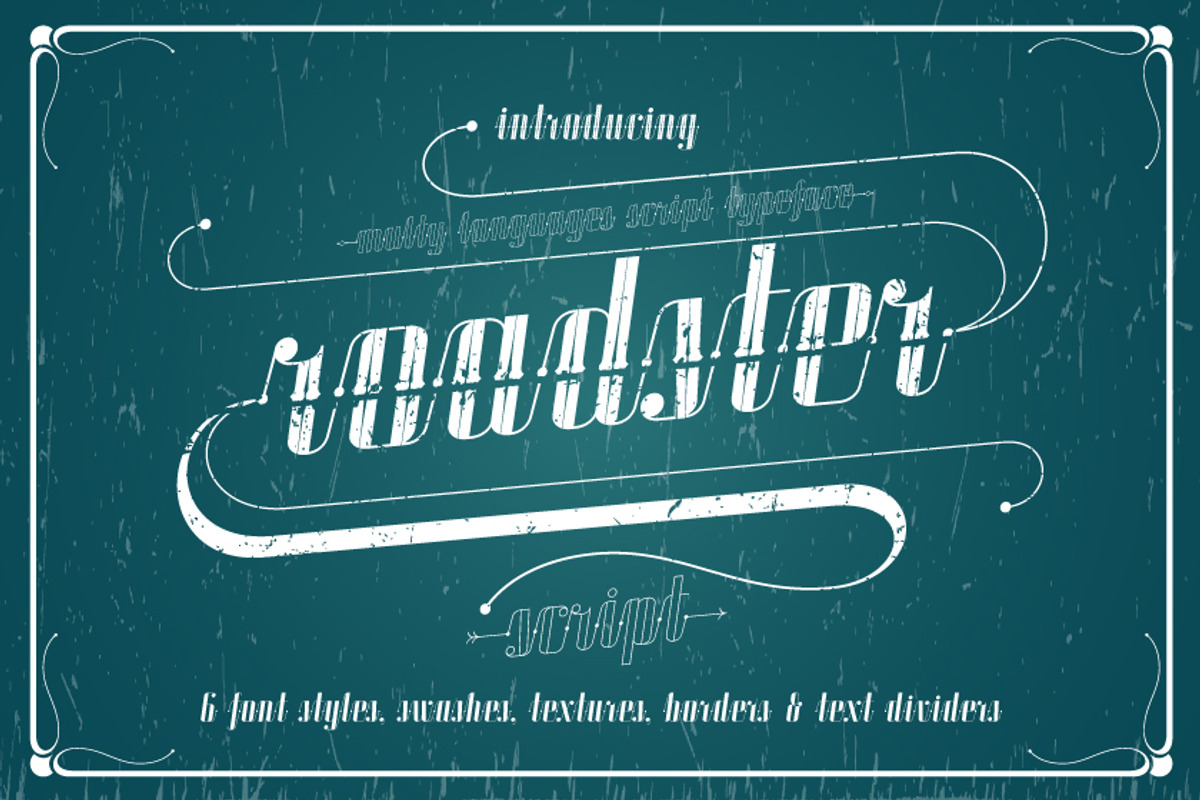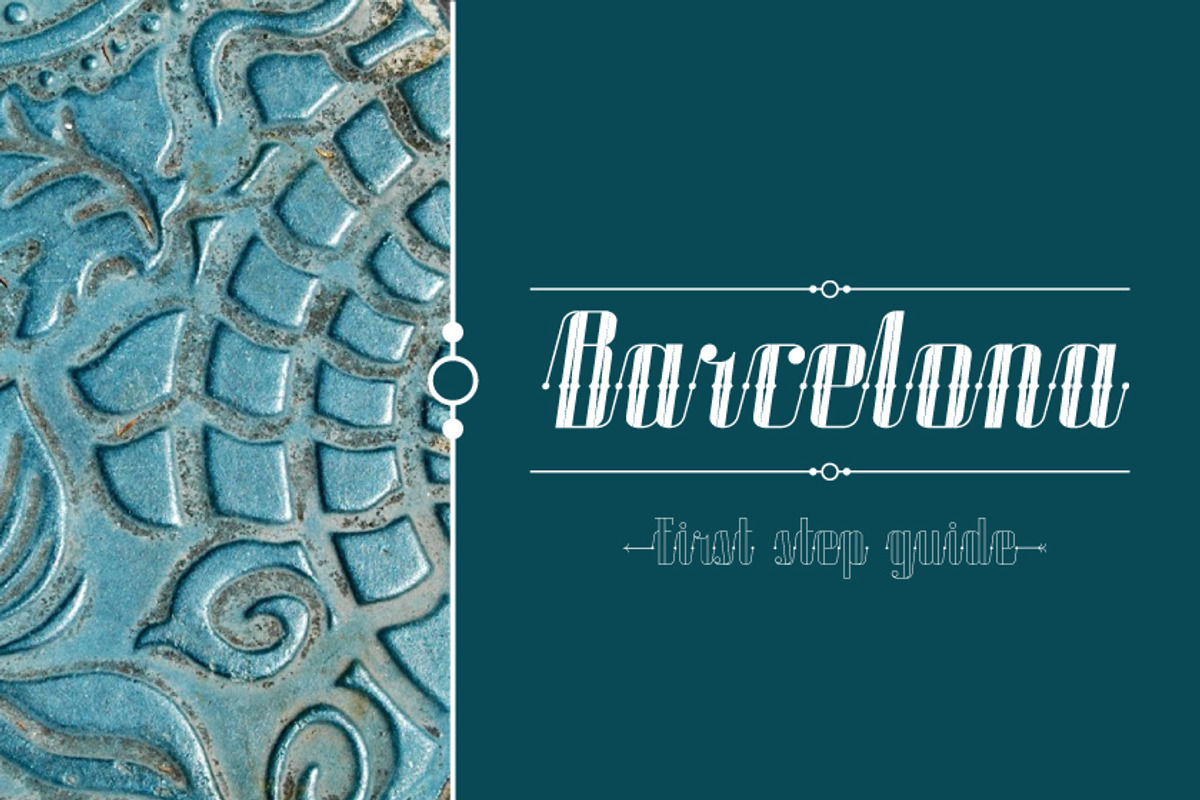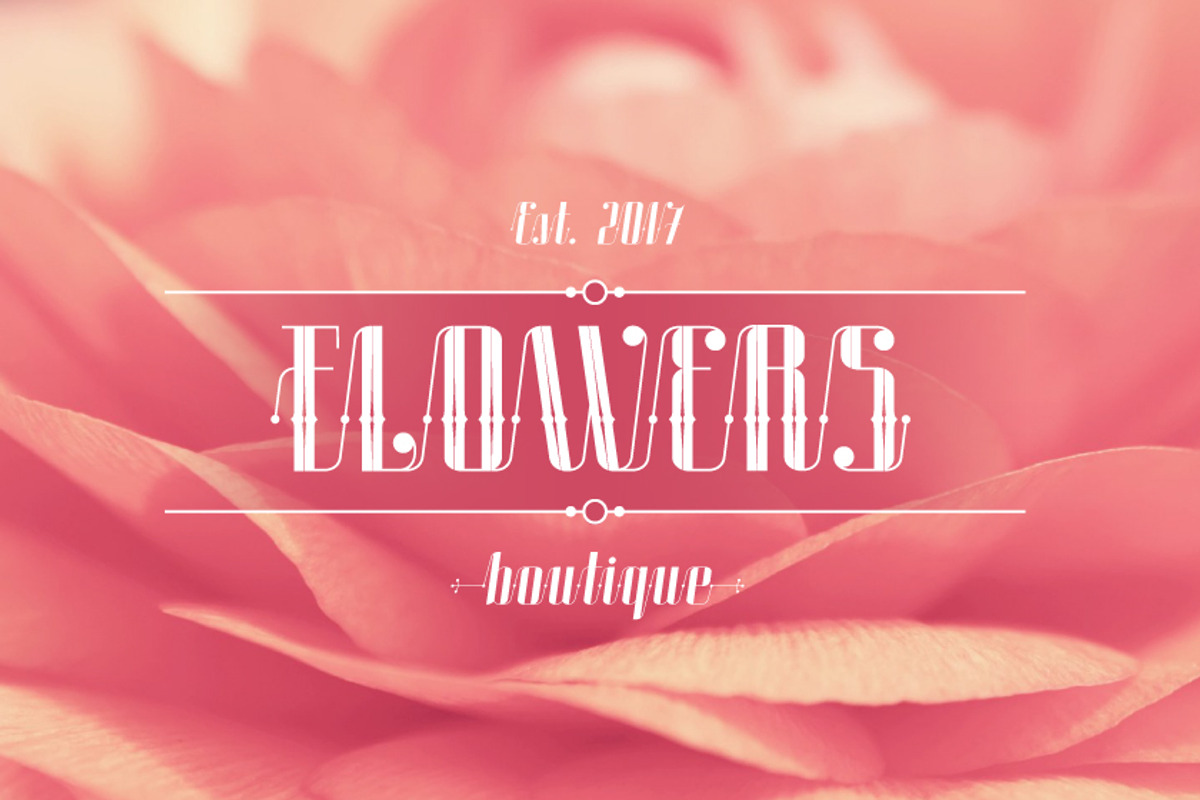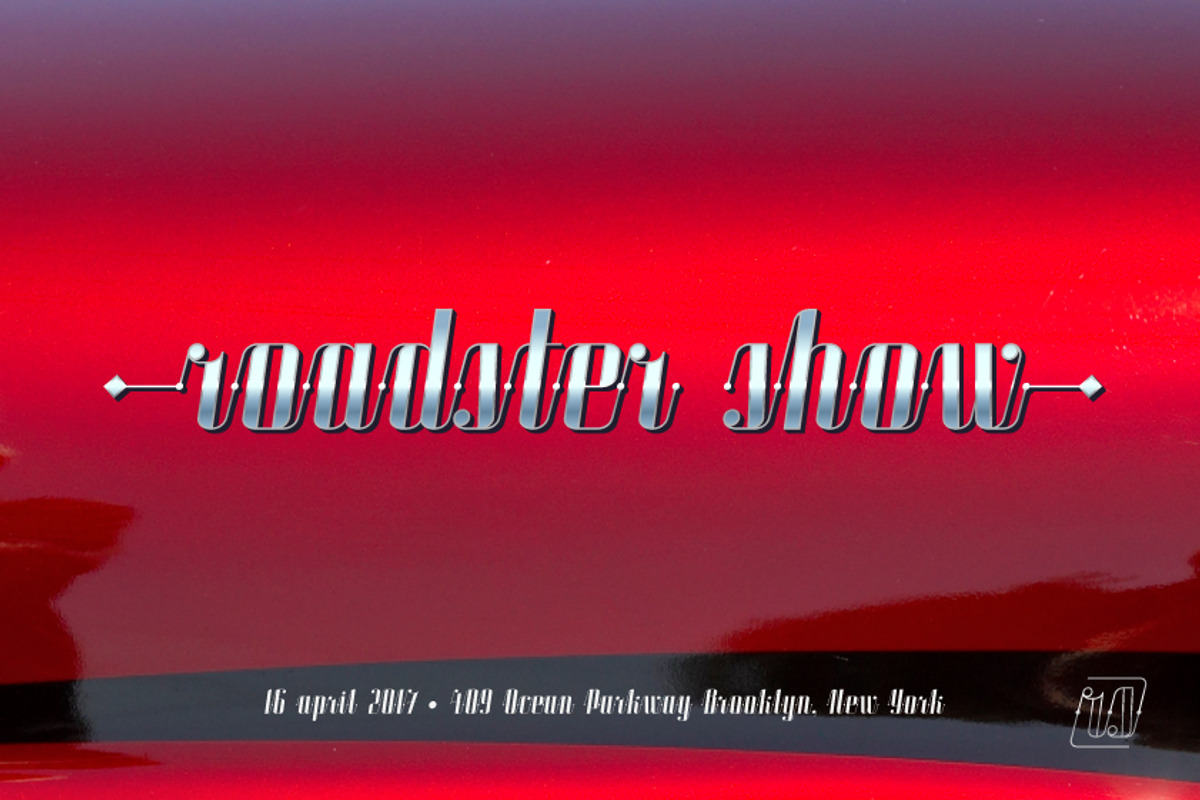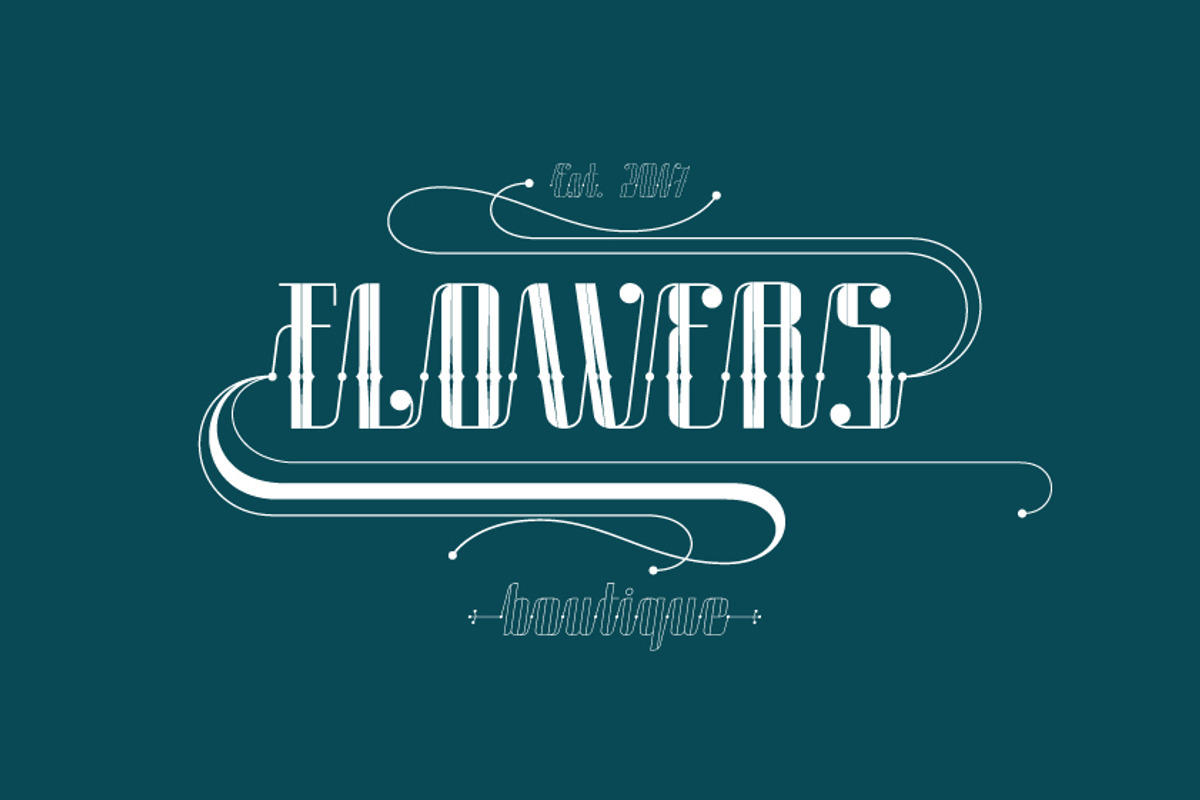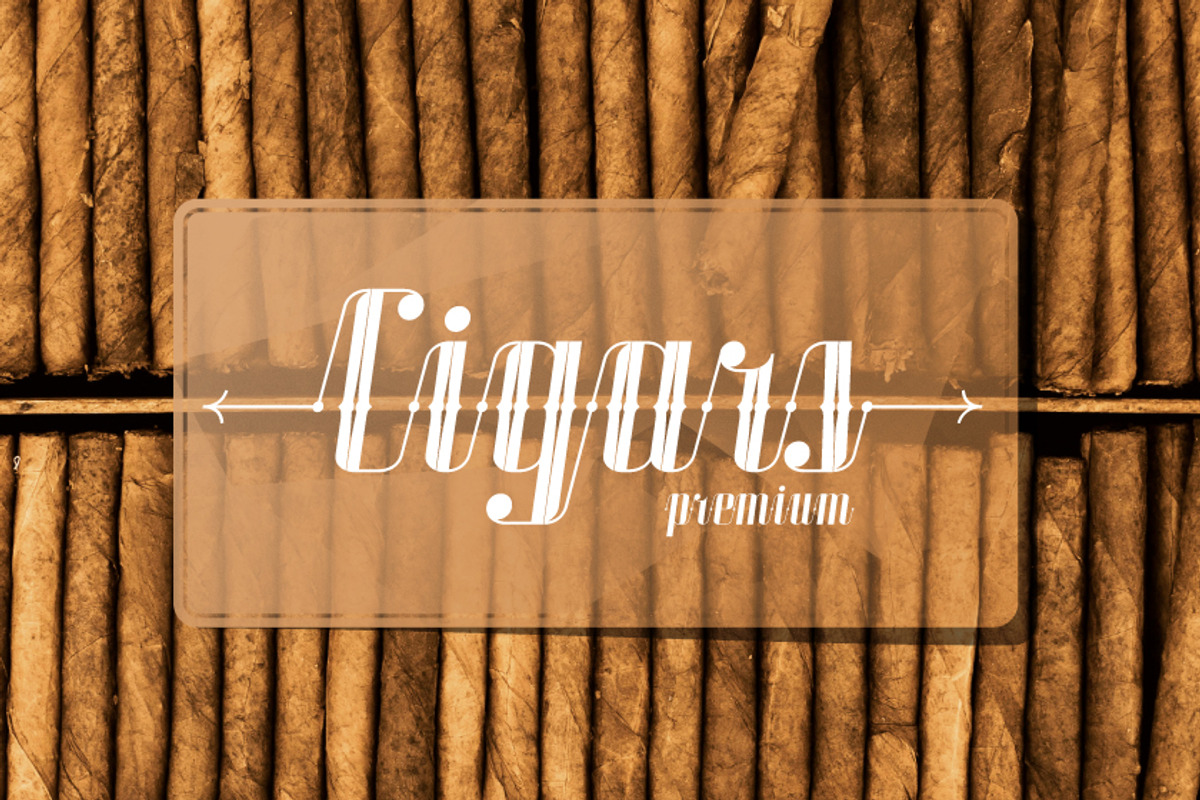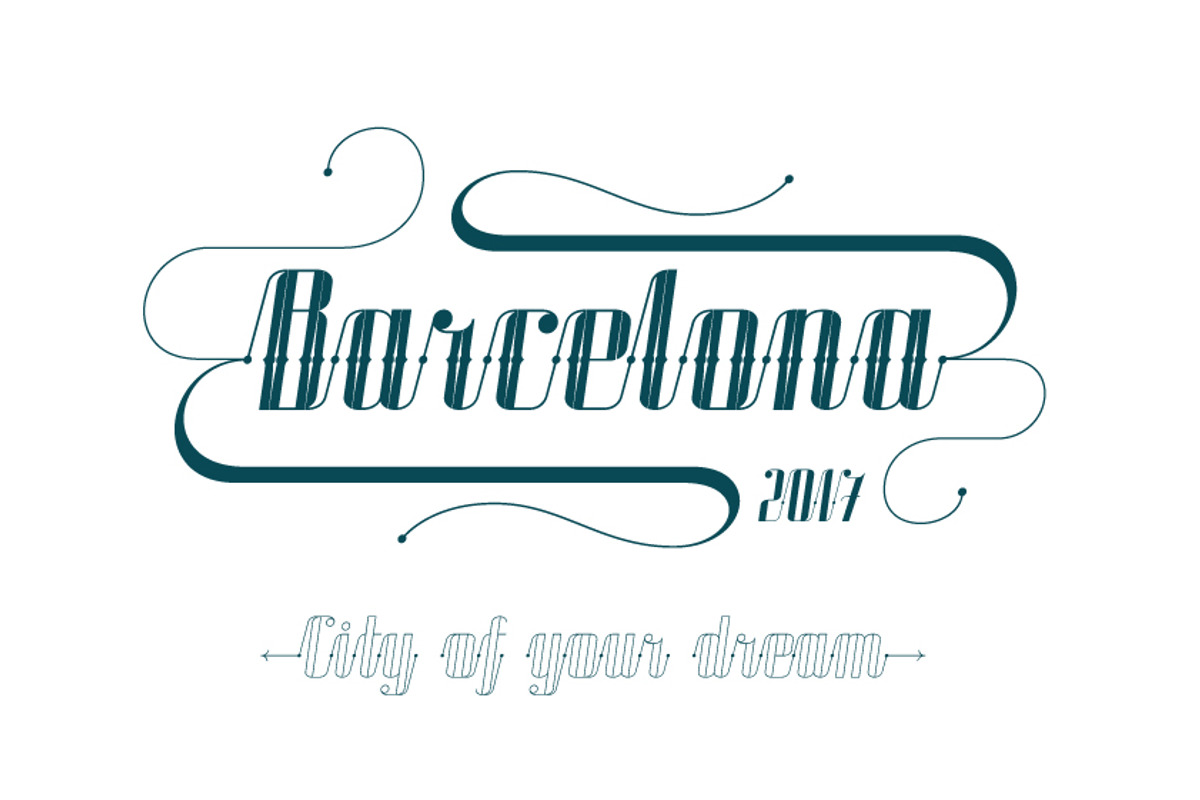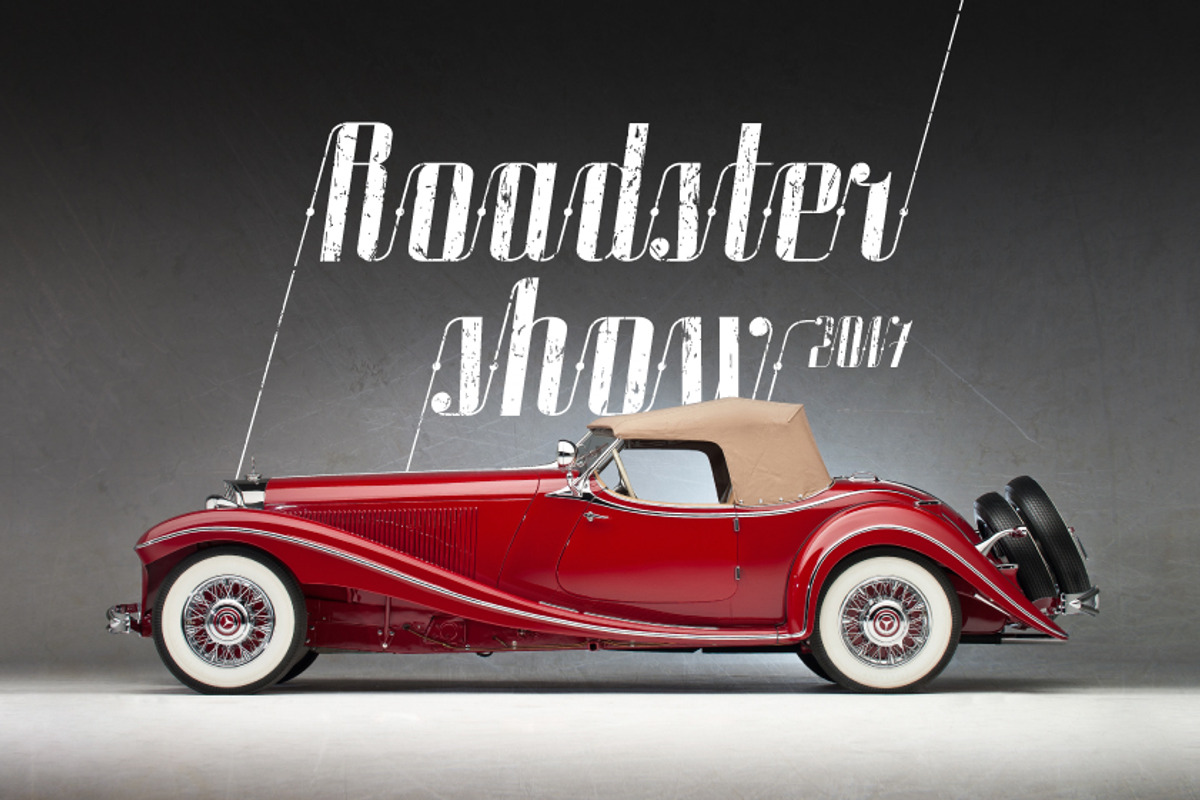
Roadster font family + Extras
Roadster font family + Extras by Fontop is a font selected for branding, posters, packaging, typography.
Why Roadster font family + Extras is worth a look
Roadster font family + Extras by Fontop fits naturally into Branding, posters, packaging, typography.